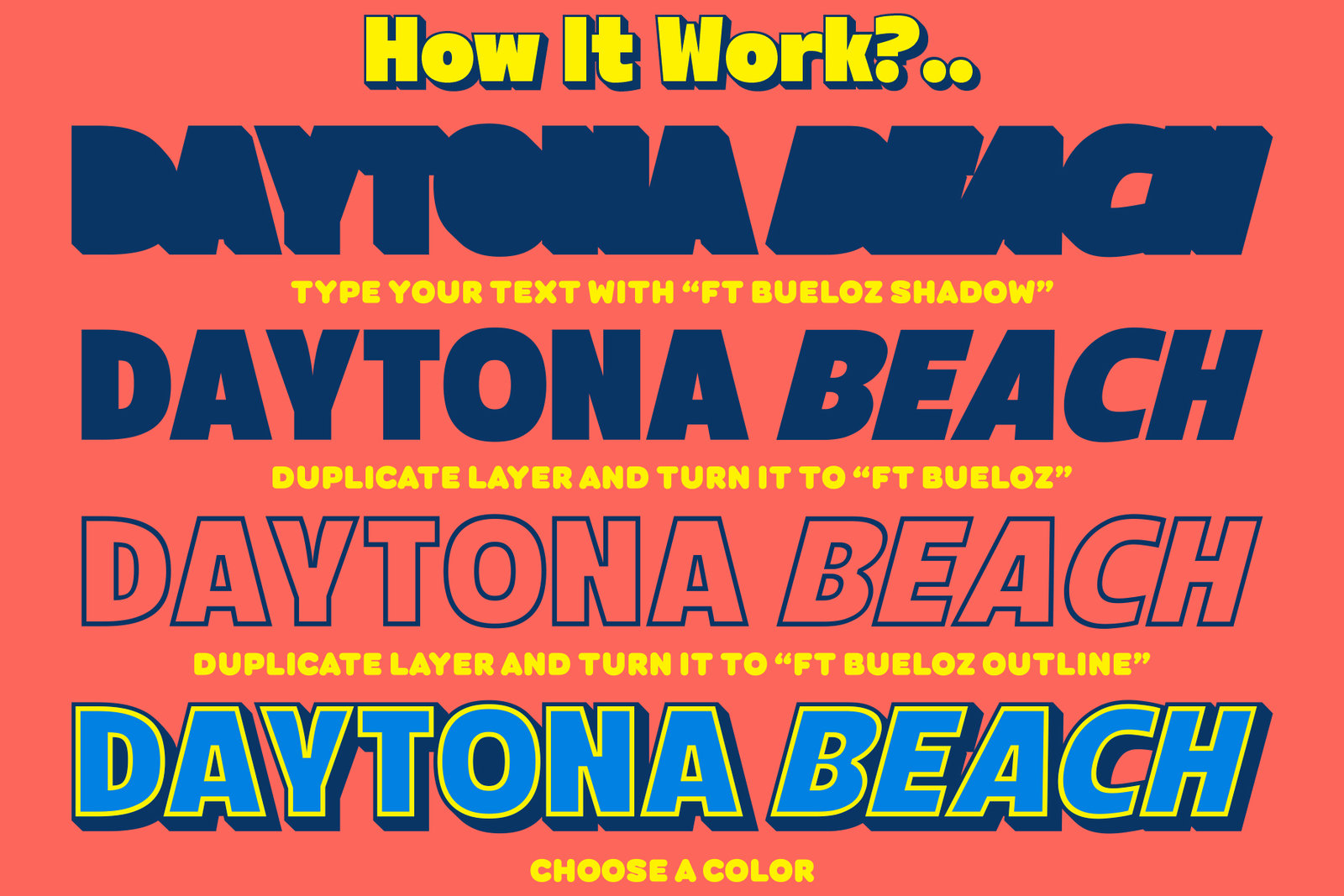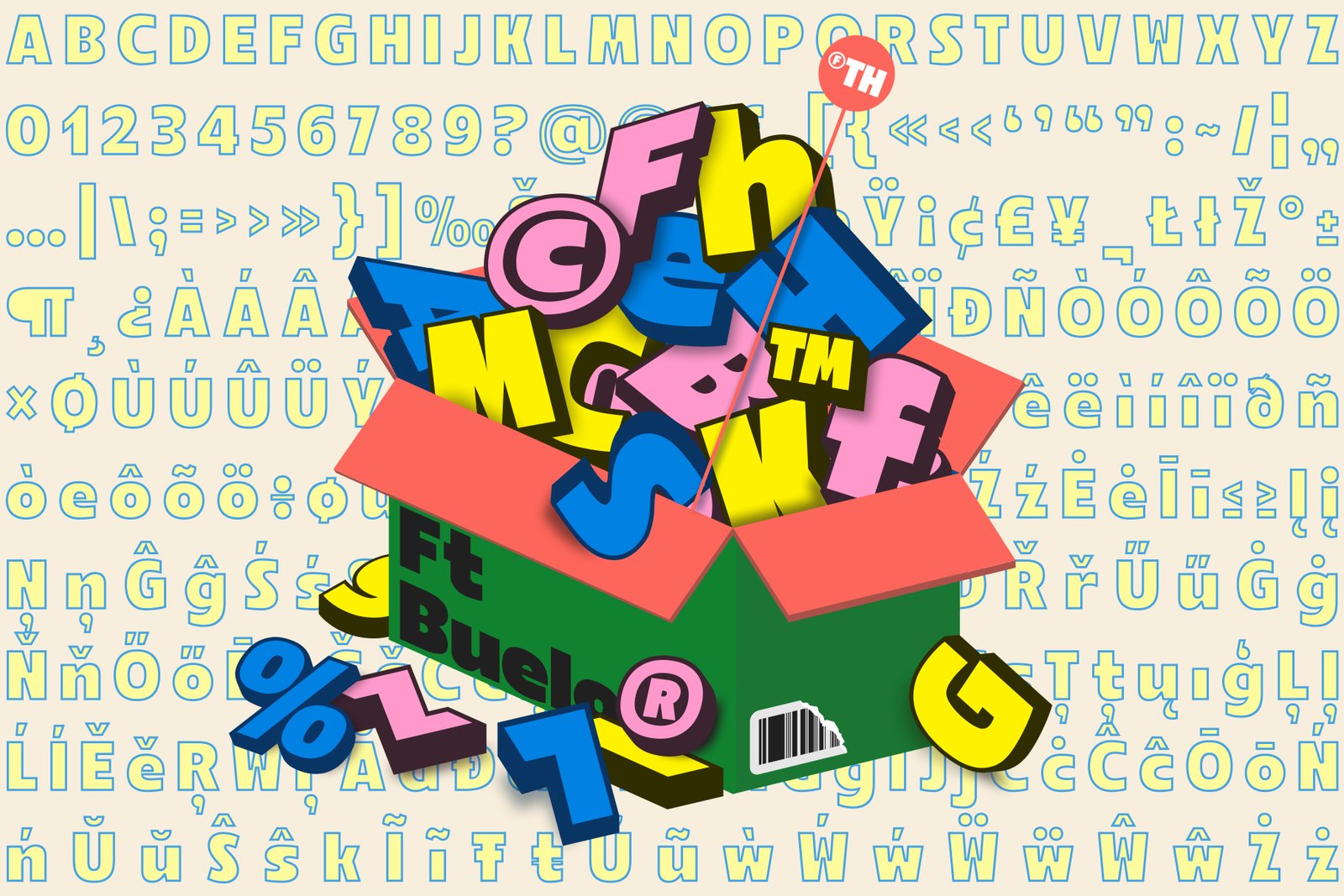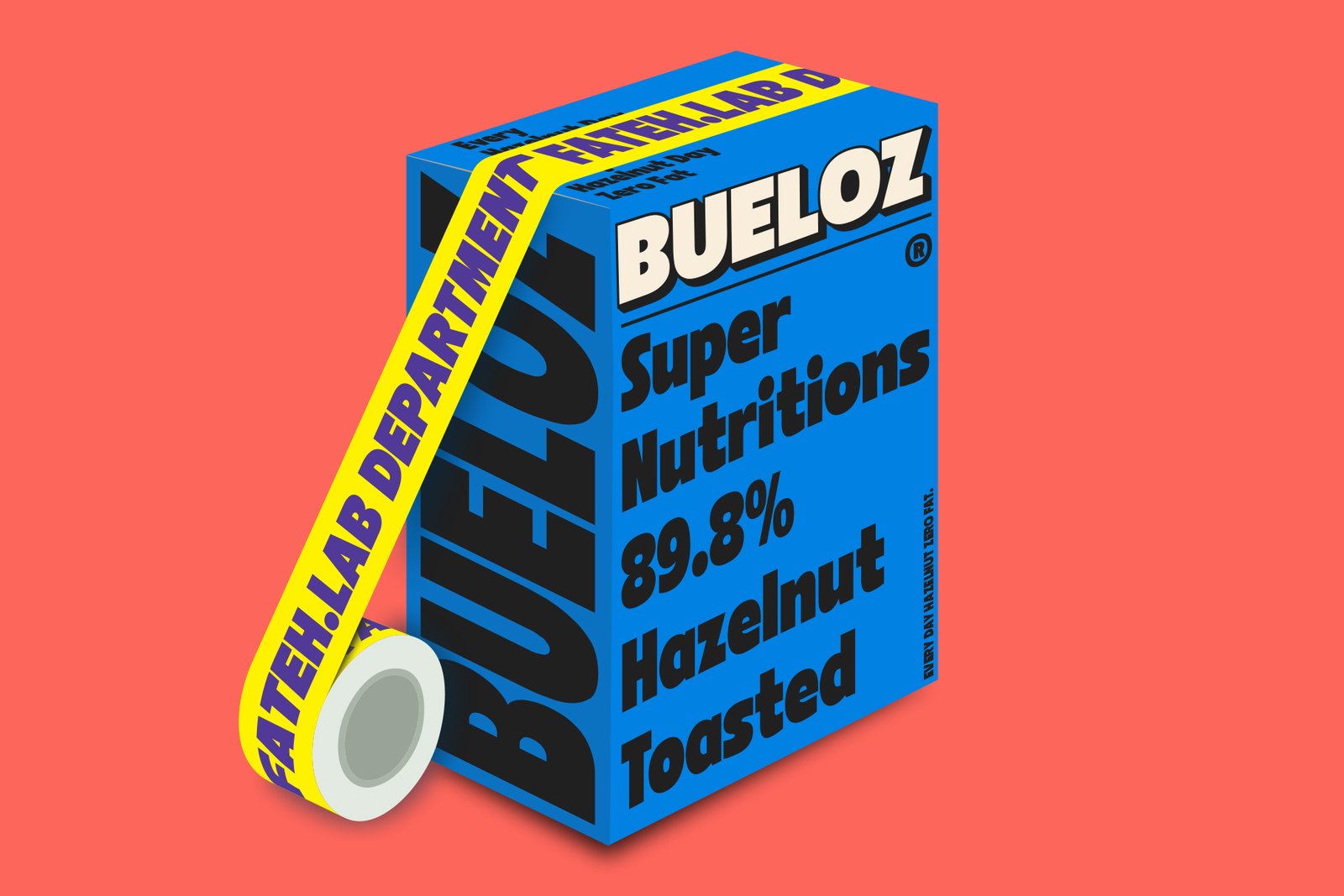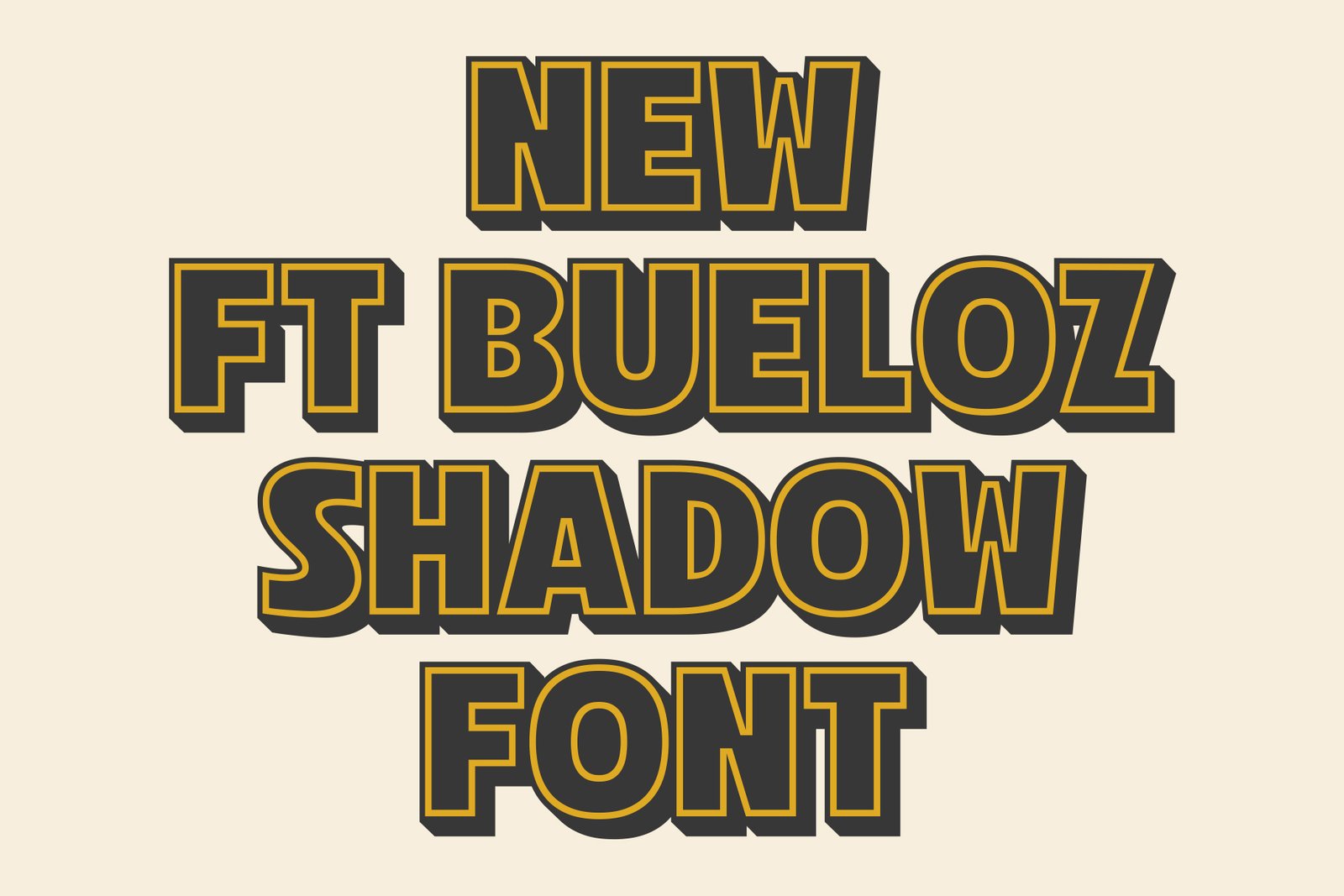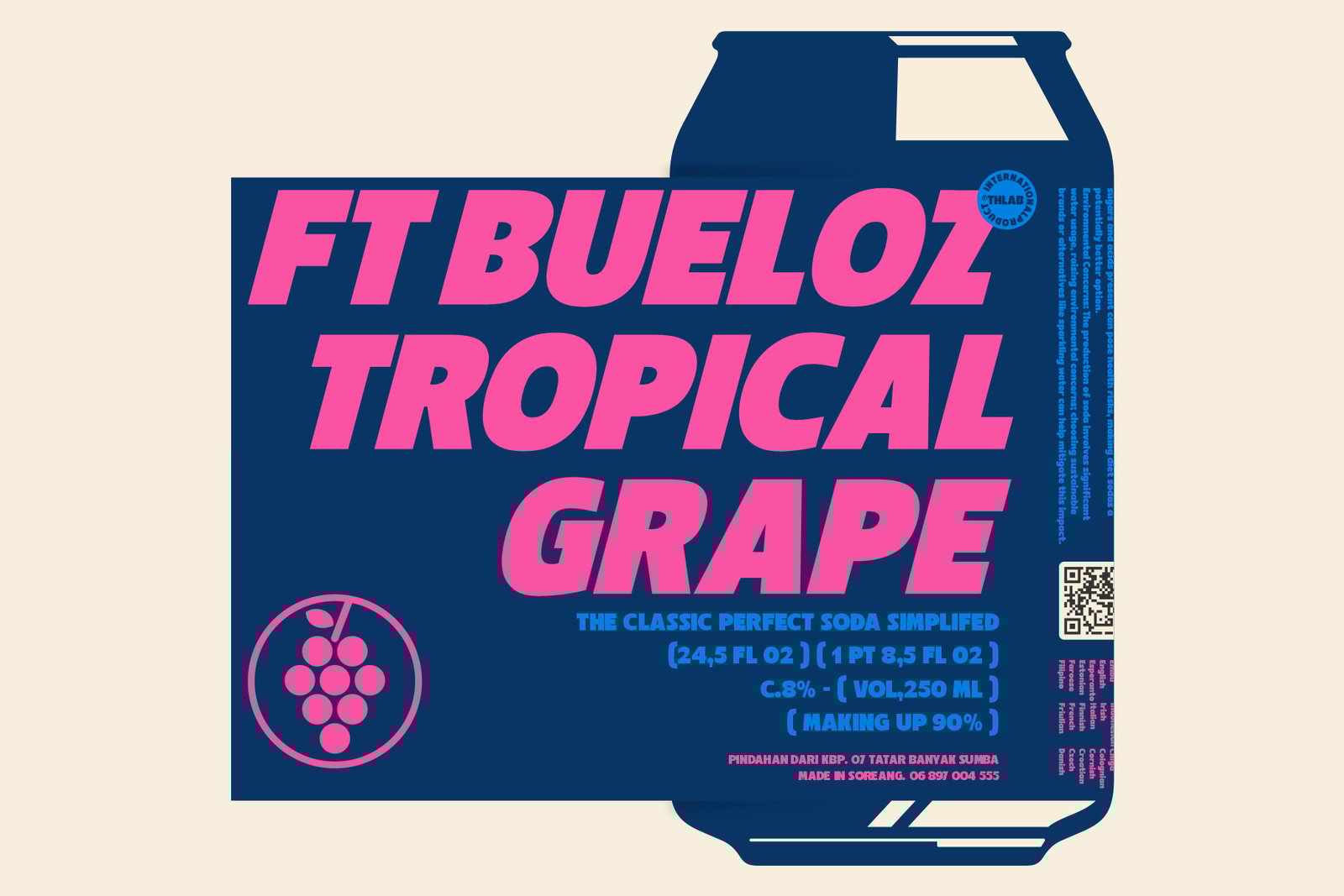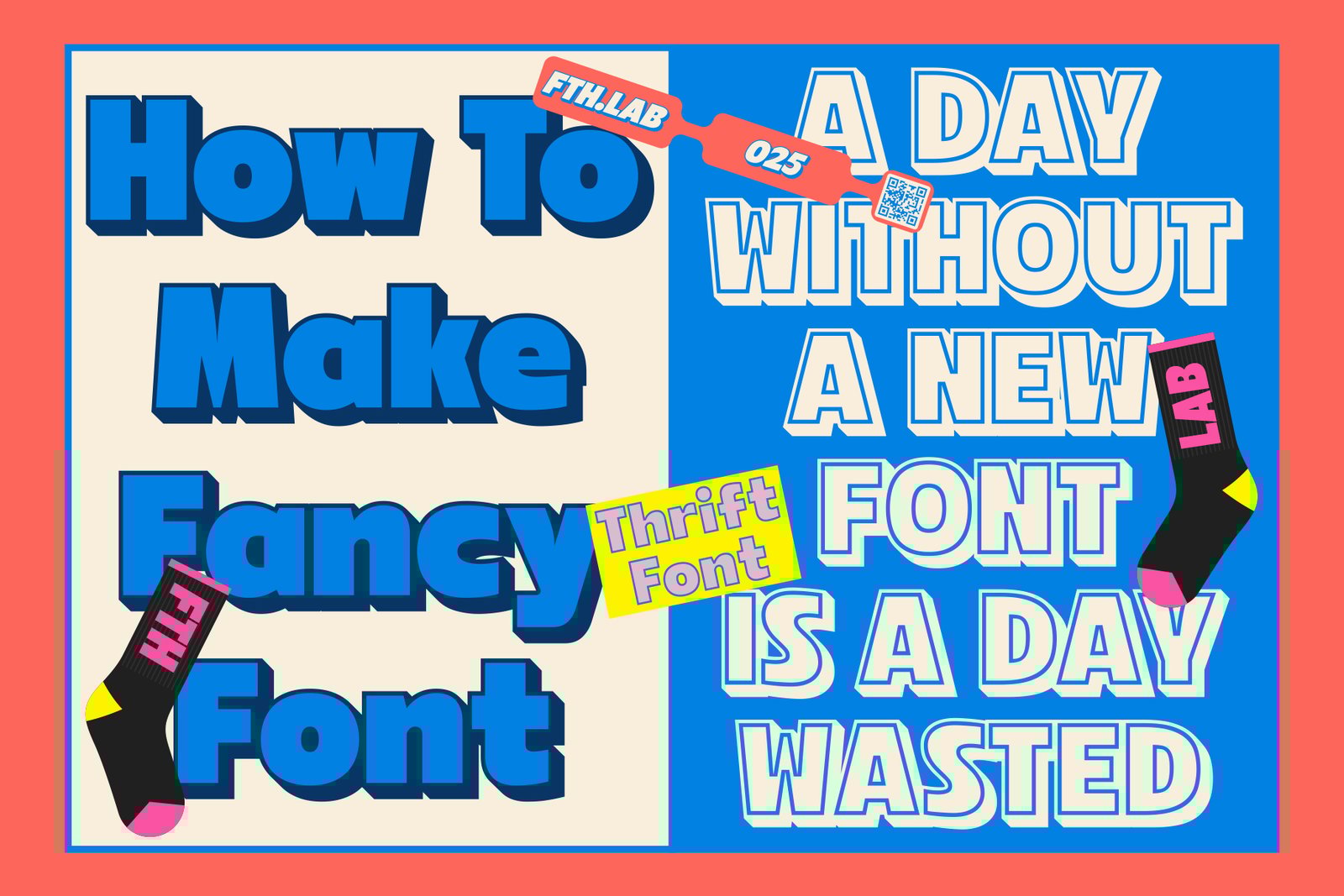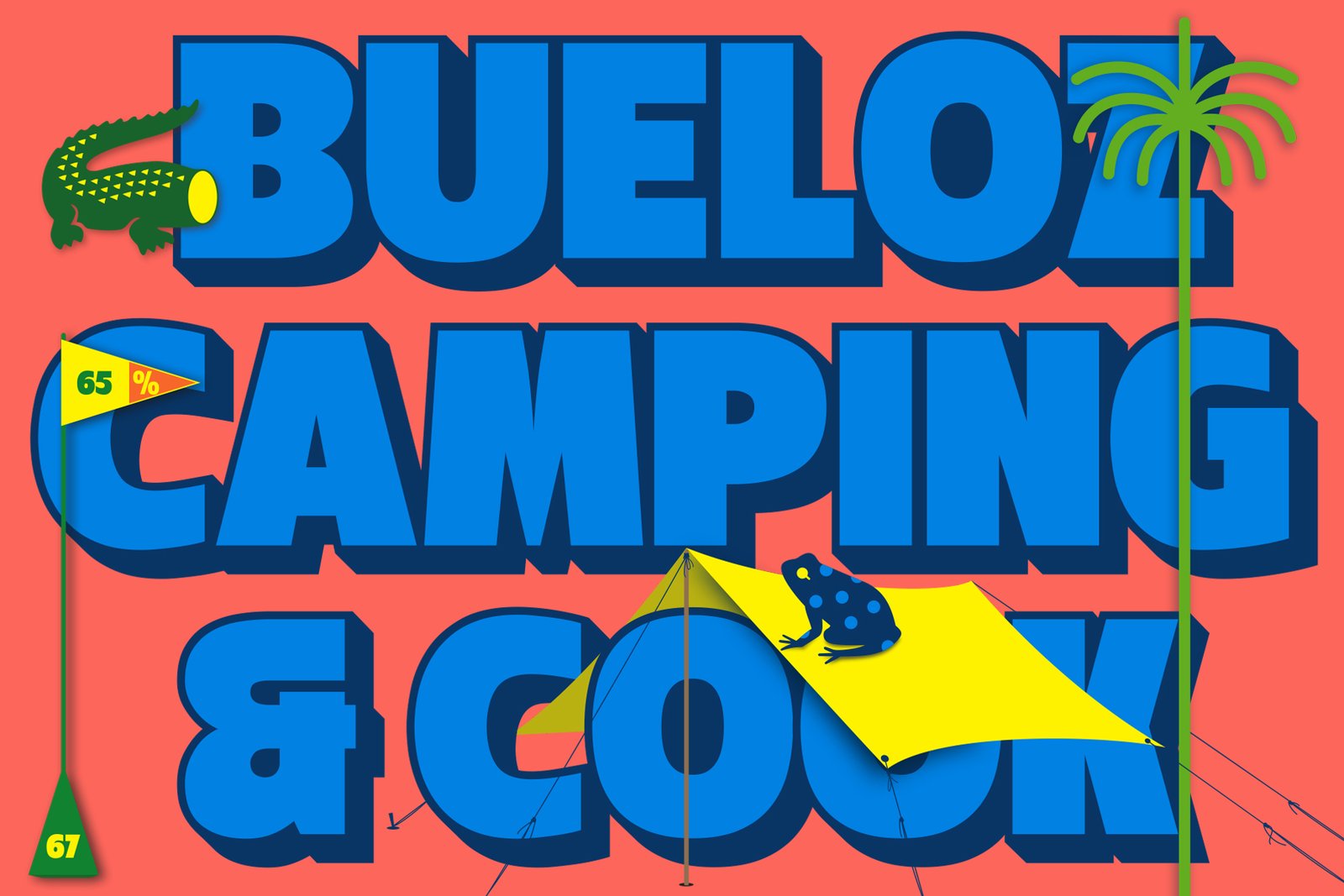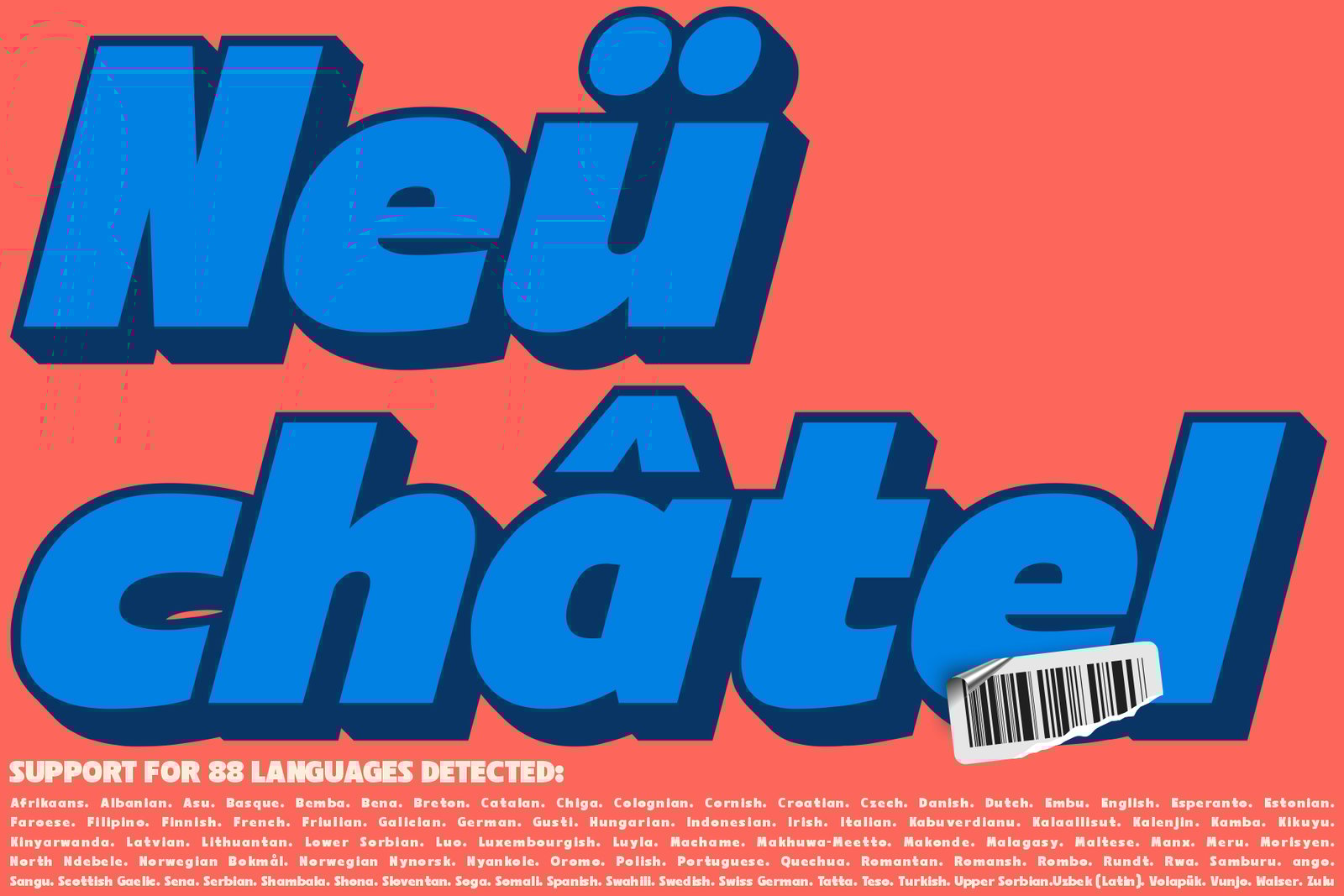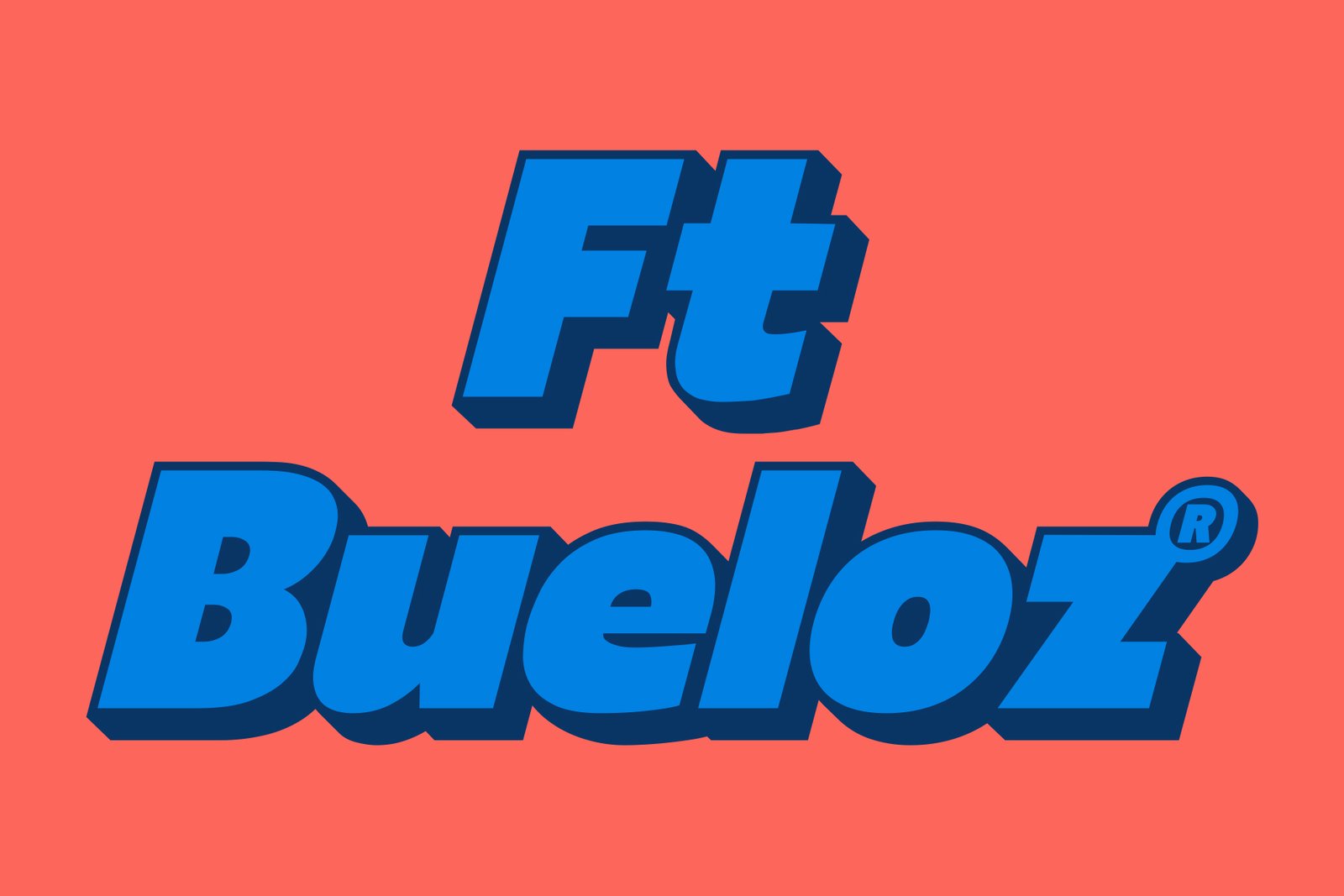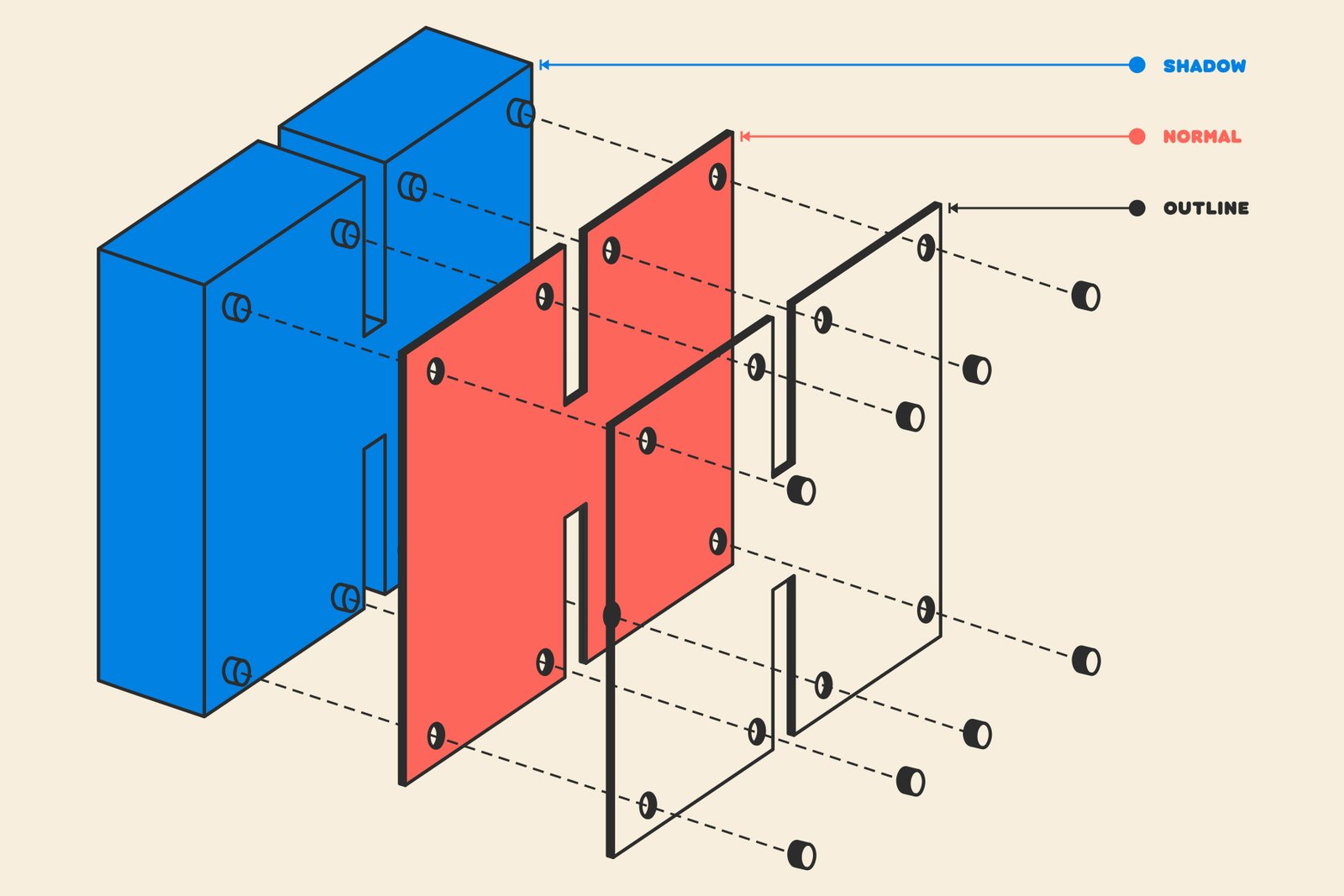
Ft Bueloz | A Modern Shadow Font for Bold Expressions
Dive into the evolving world of typography with Ft. Bueloz, a shadow font ushering in new design trends. This typeface marries soft yet bold elements, making it an essential tool for contemporary design projects.
Ft. Bueloz stands out with its superior weight, commanding attention across various mediums.
Optimal Use Cases
Posters—Ideal for capturing attention in large formats.
Social Media—Ensures readability and impact in digital spaces.
Headlines—Perfect for magazine and packaging headers.
Large Print Formats—Exceptional for impactful design statements.
Ft. Bueloz is a versatile choice, aligning perfectly with modern design sensibilities.